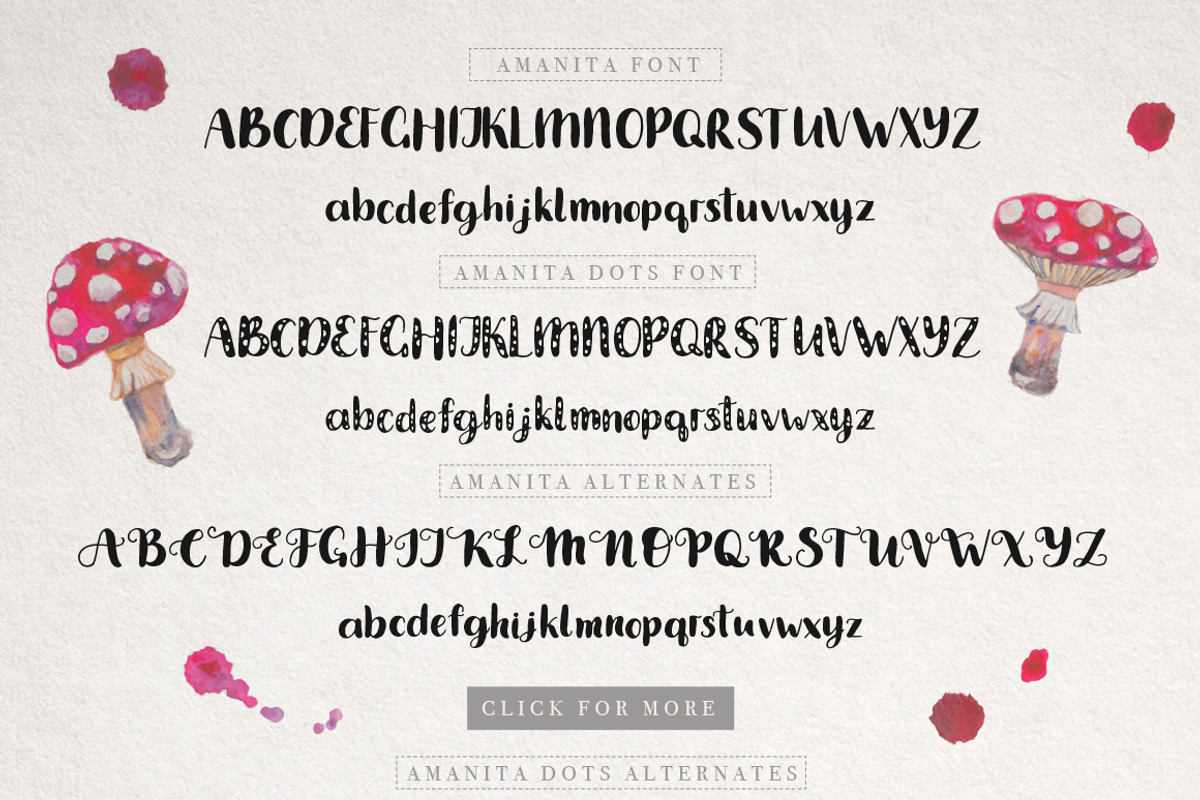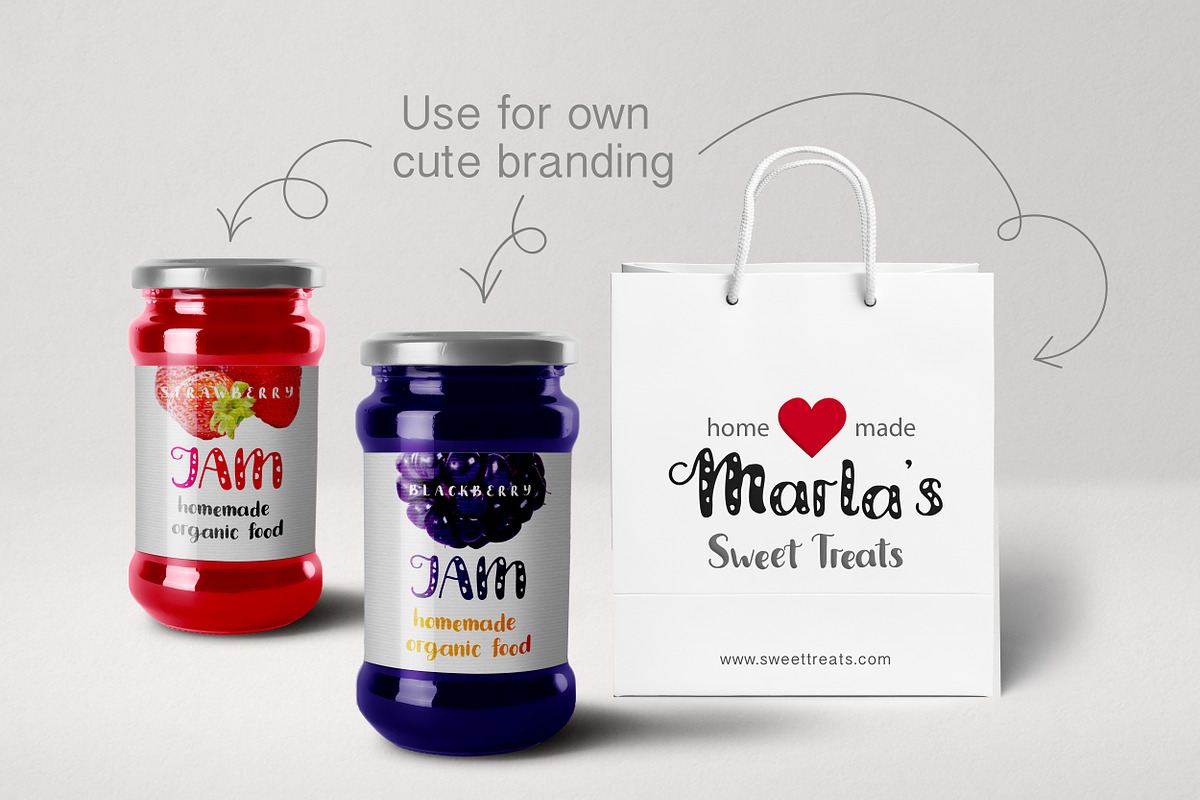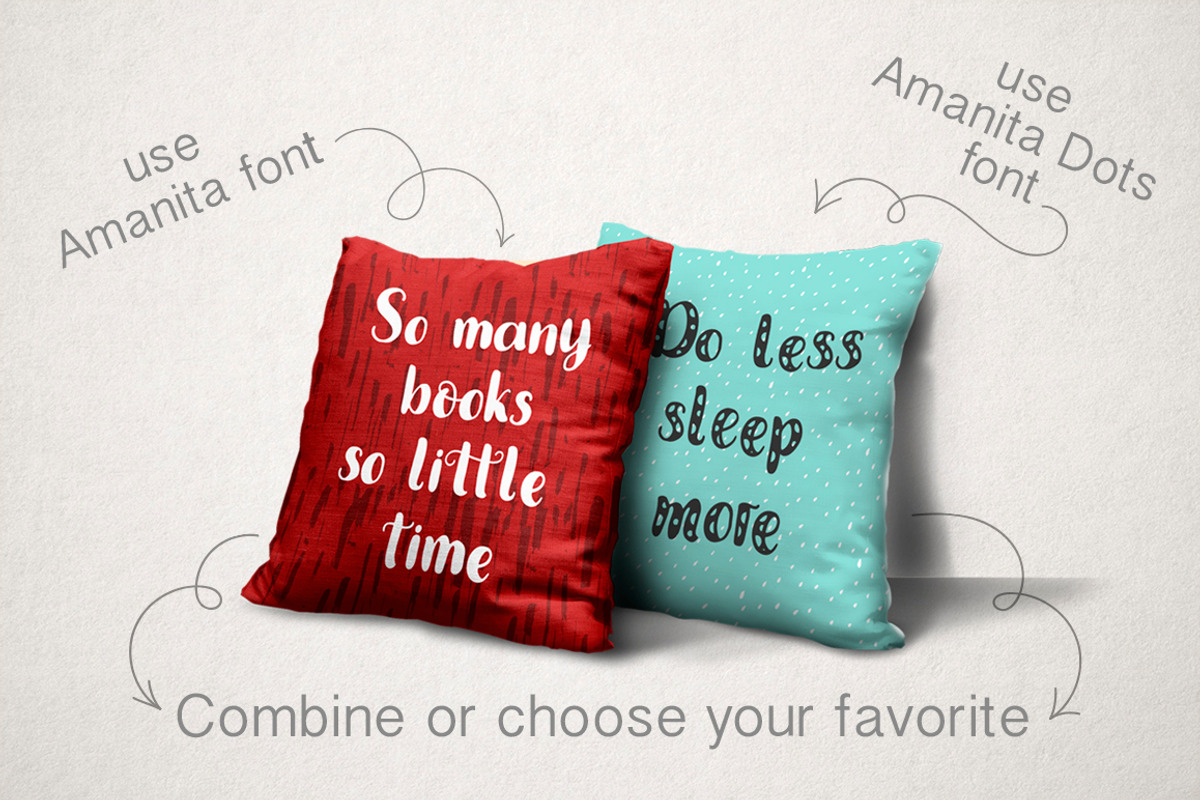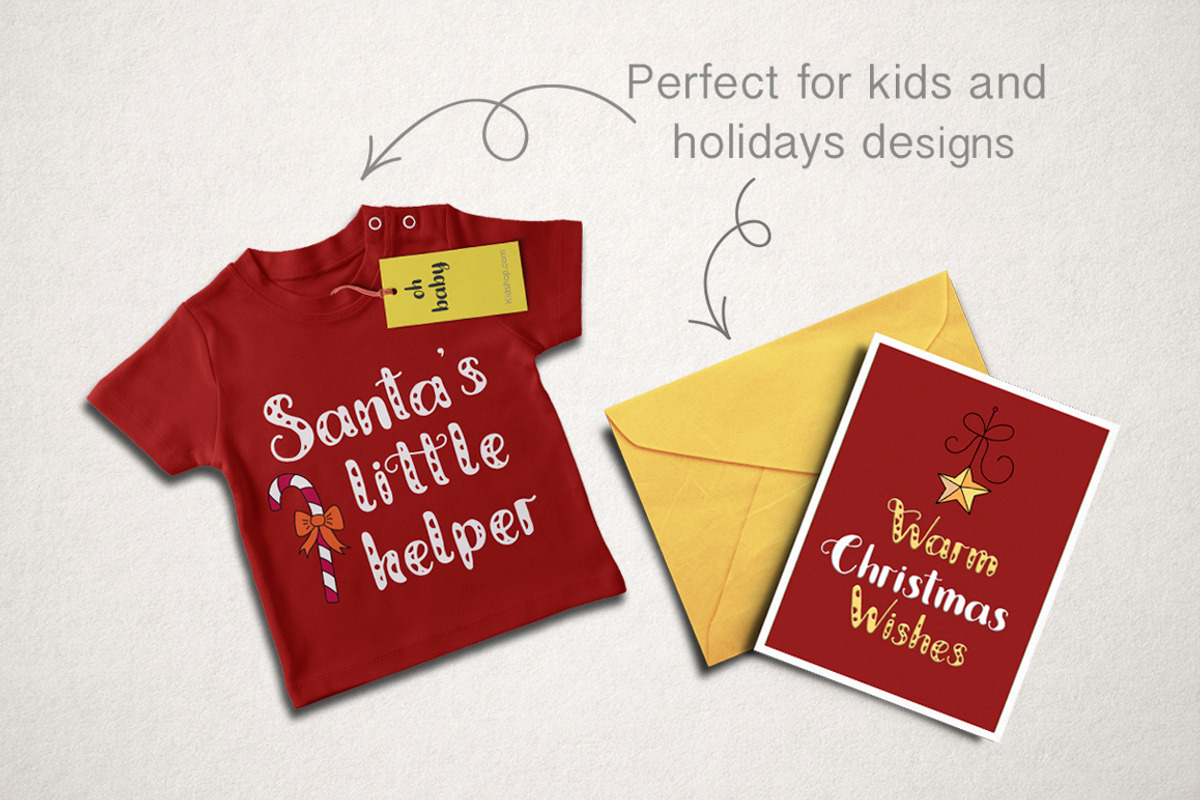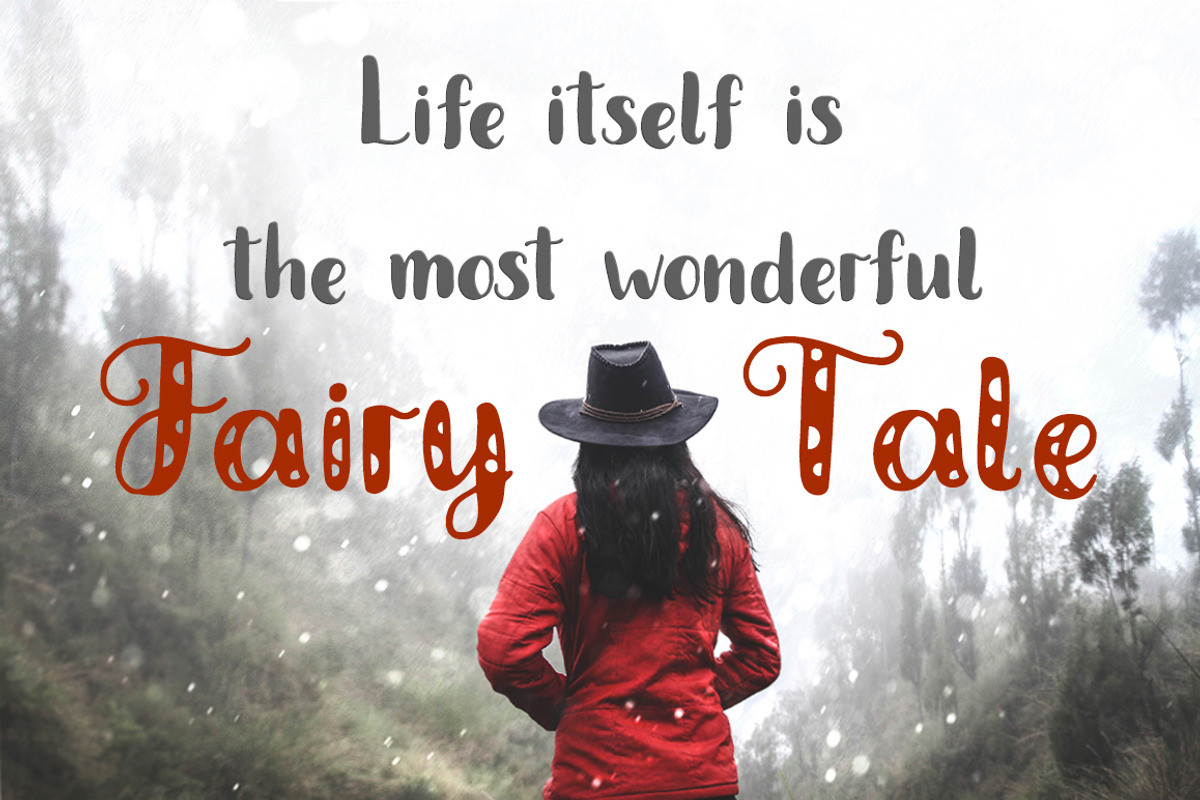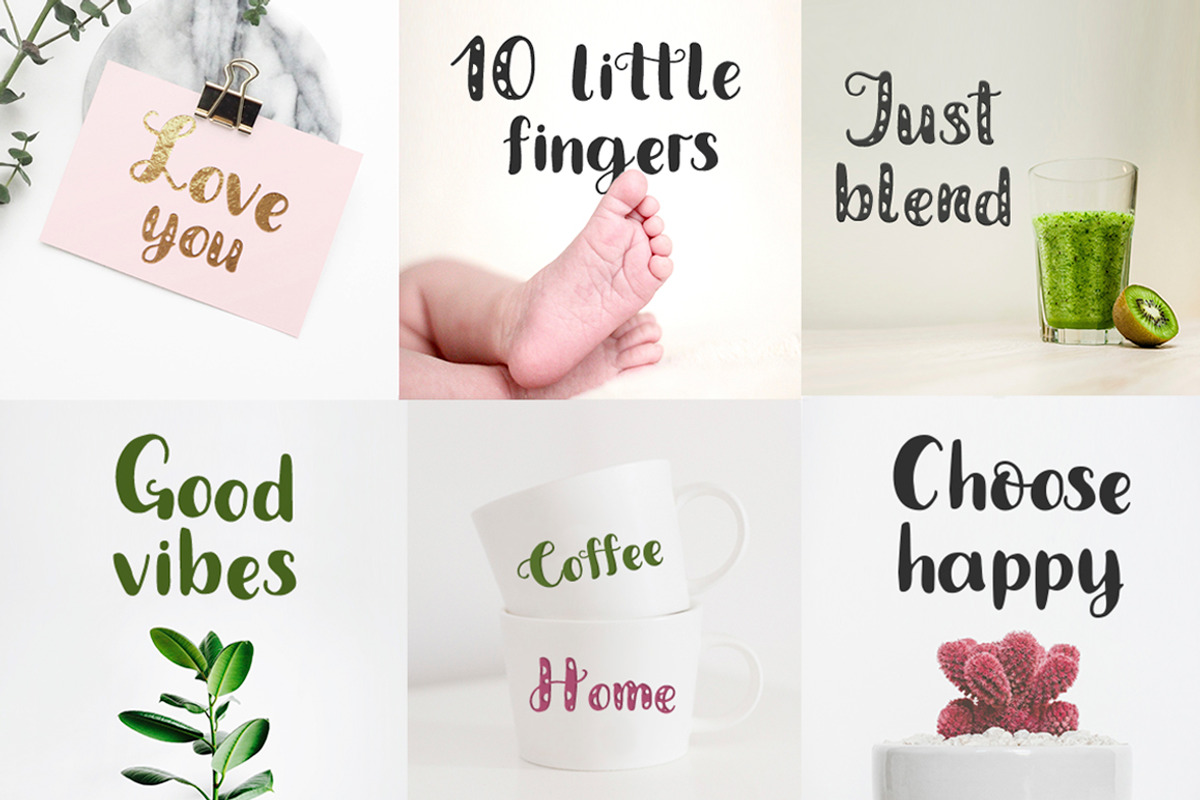
Amanita font.
You will get two super fun, hand-drawn fonts that comes with two sets of lowercase and uppercase letters and some ligatures, so that your designs can really get that "hand-drawn" feel.
Amanita dots font is really reminds amanita mushrooms. Decorative circles in letters make this font super cute and perfect for lovely fun designs.
Amanita font is a clean version of the first font. This font fits perfectly with the previous one and looks great on its own
Fonts include multilingual support: north, south and central Europe.